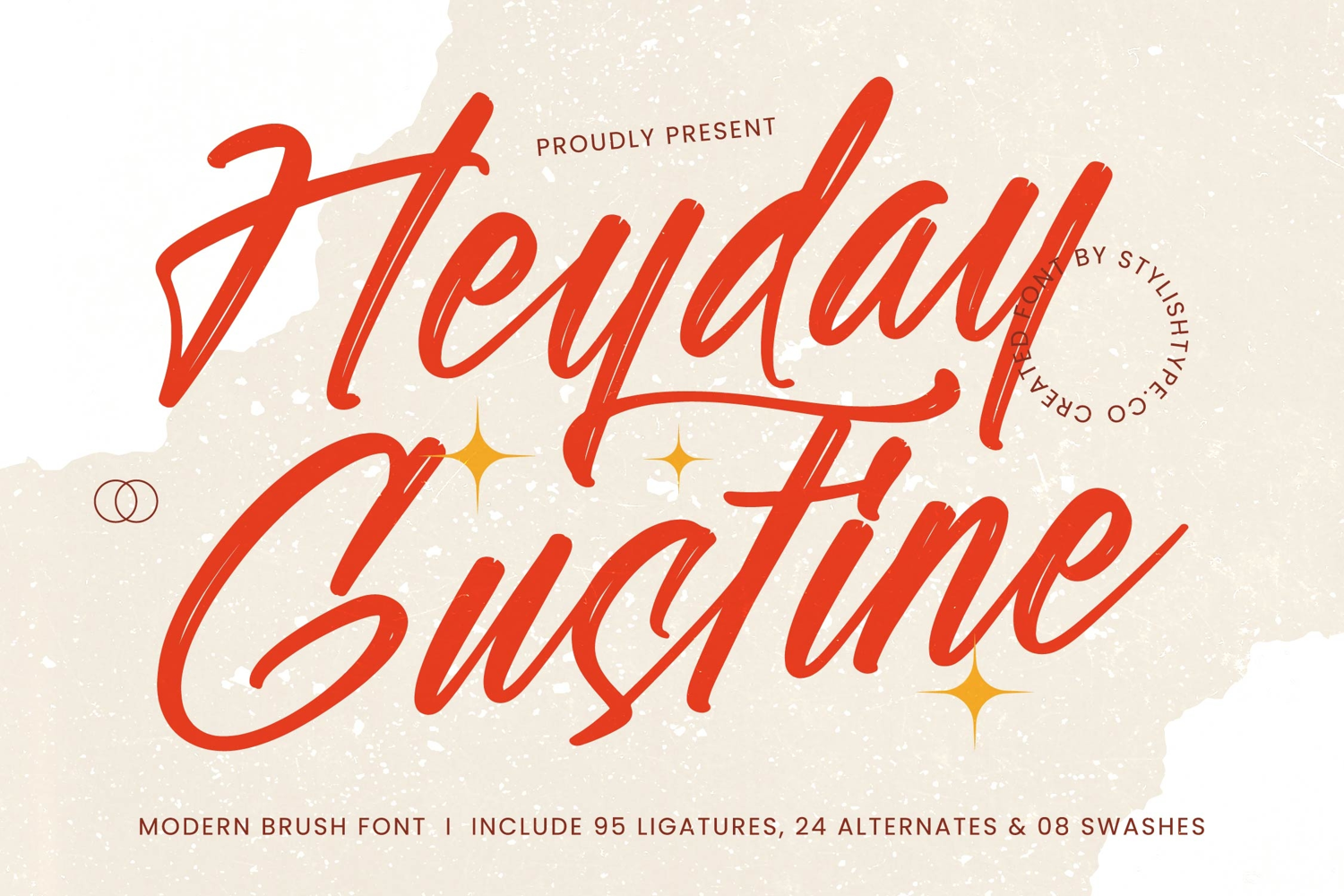
Heyday Gustine - Modern Brush Font
Heyday Gustine
Heyday Gustine Italic
Heyday Gustine - Modern Brush Font adapts seamlessly across global markets, making it incredibly versatile for international projects. This global accessibility ensures your message maintains its authentic, high-impact aesthetic regardless of the language barrier. Investing in Heyday Gustine - Modern Brush Font is investing in unrestricted creative freedom across all continents.